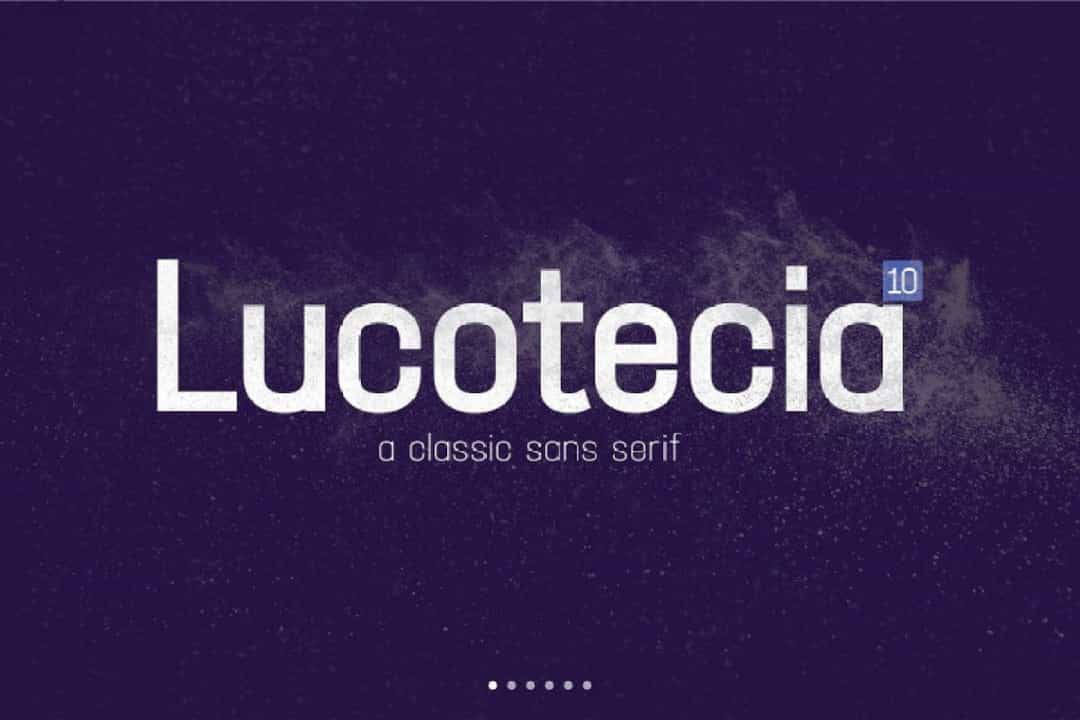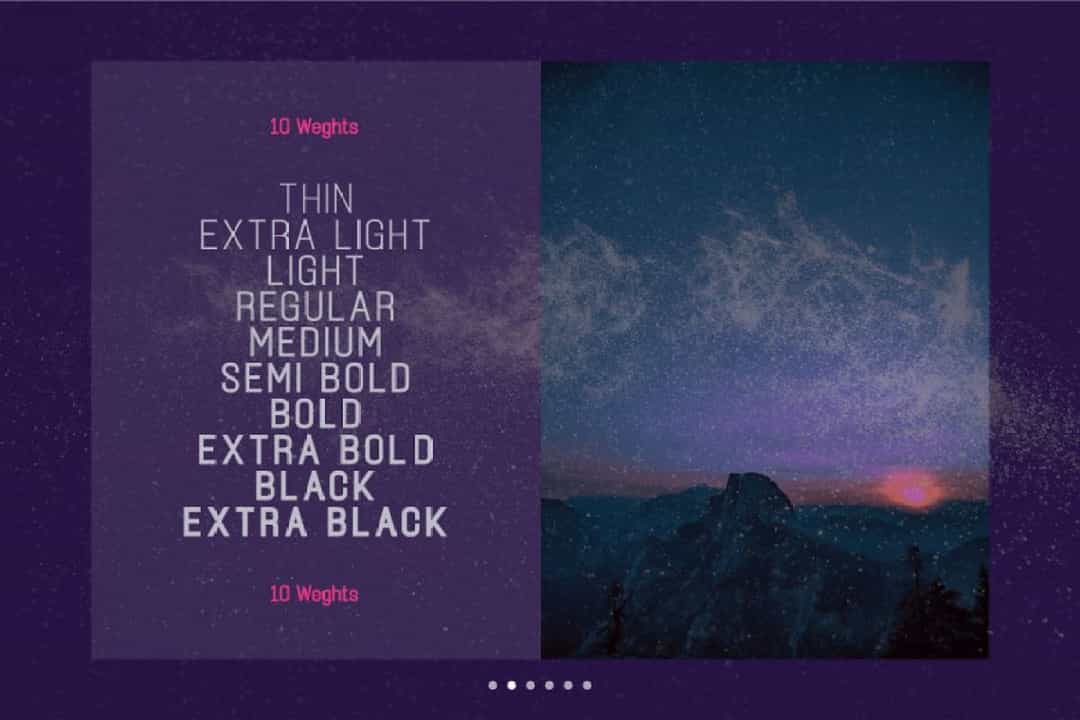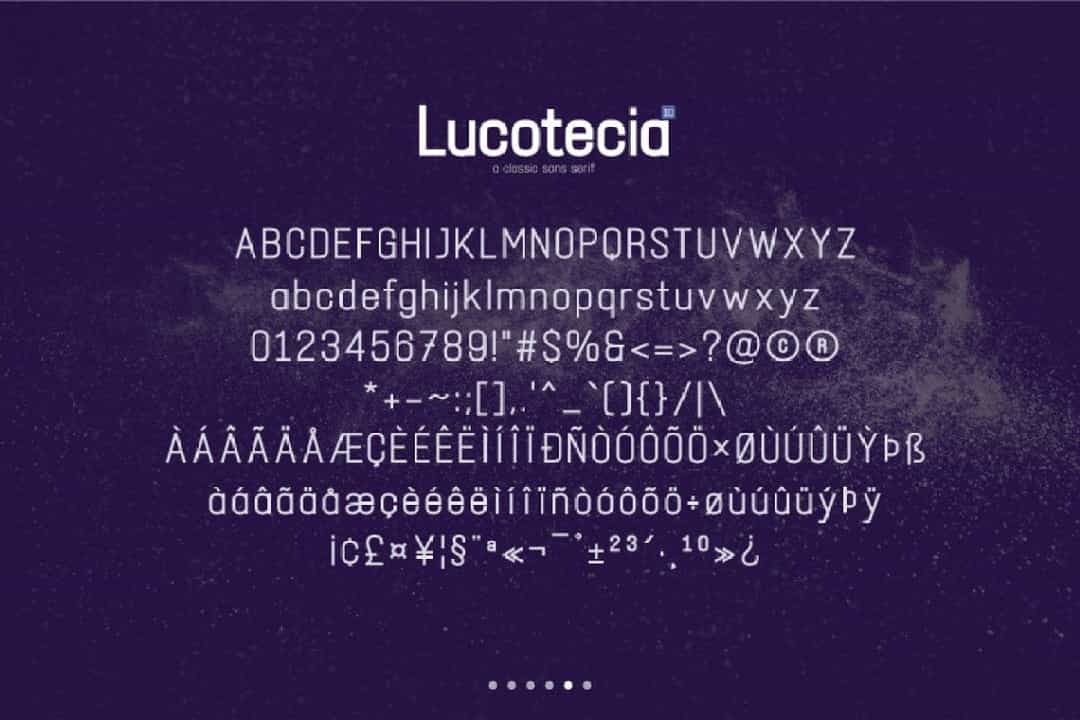
Lucotecia is an elegant sans-serif font perfect for any creative project you might undertake. Add it to any design you’ve made, and watch how its presence stands out!